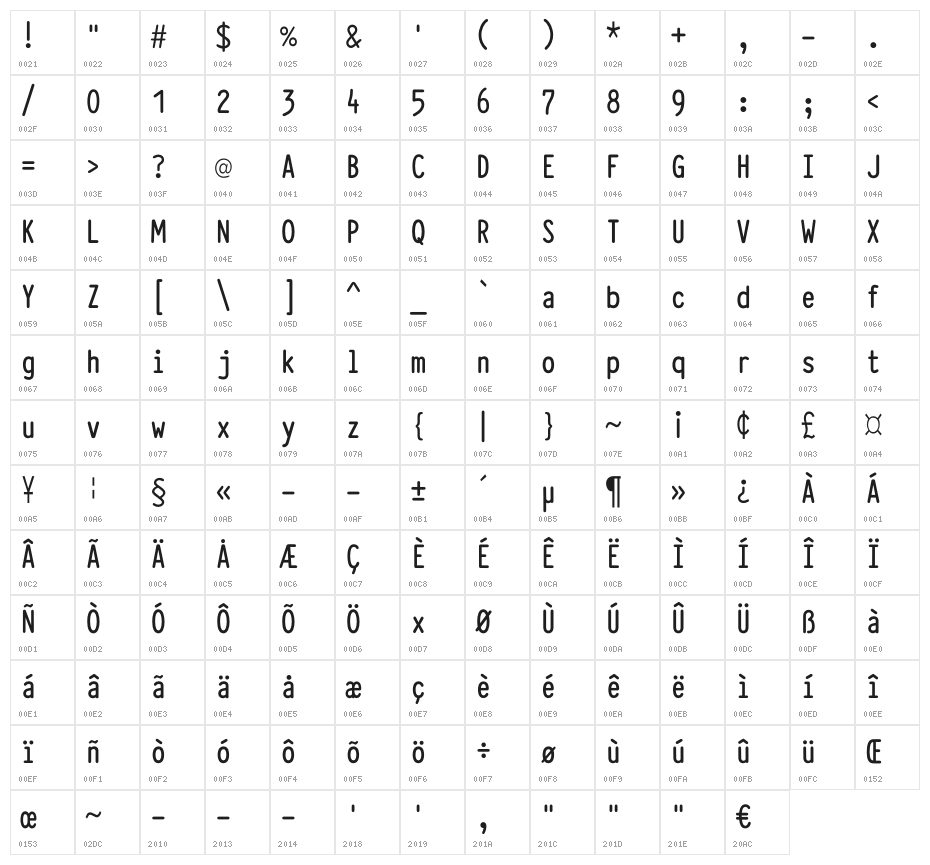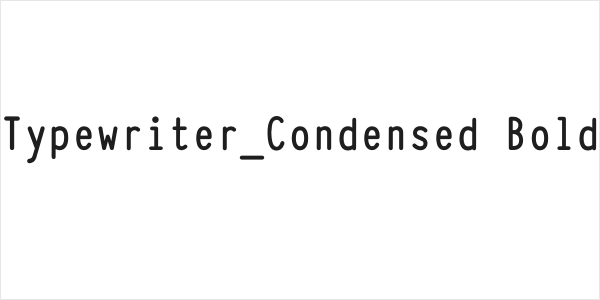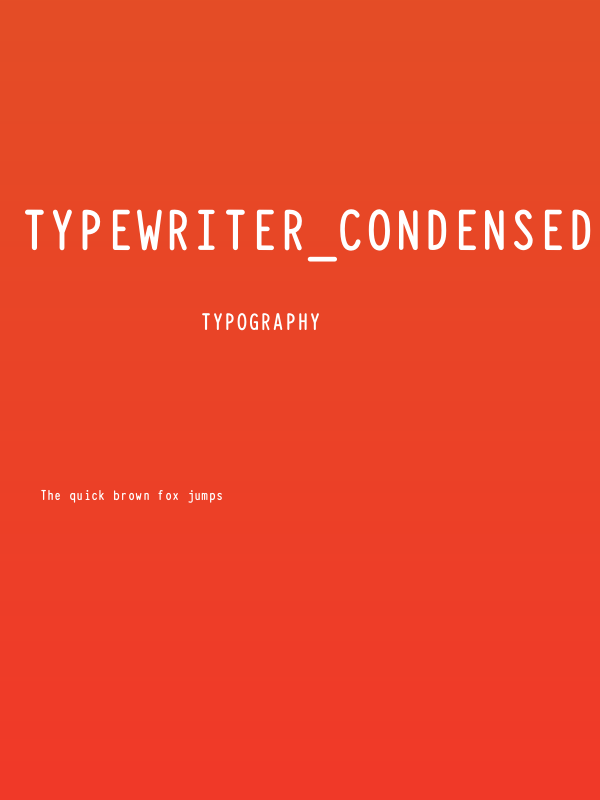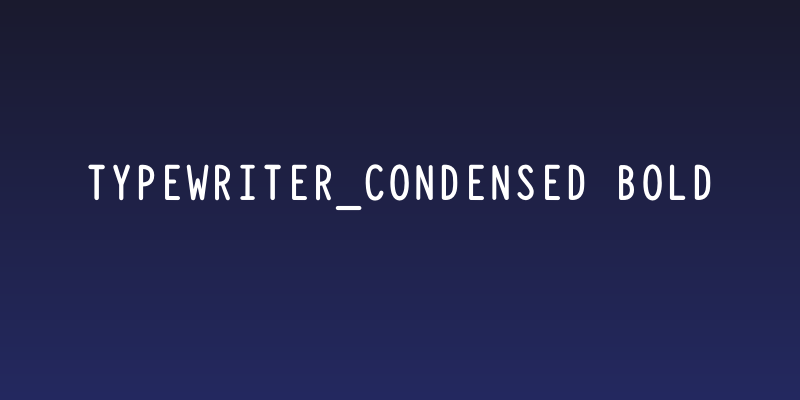
Typewriter_Condensed Bold Font
| श्रेणियाँ | Typewriter |
| चौड़ाई | Condensed |
| अक्षर अंतराल | Normal |
| समग्र शैली | Vintage |
| उपयोग का मामला | Headlines, Logos, Posters |
| सुझाए गए प्रोजेक्ट | Ideal for projects that require a vintage or retro aesthetic, such as posters, book covers, or branding materials. It can also be used in digital designs that aim to evoke a sense of nostalgia. |
| तय पिच है | Yes |